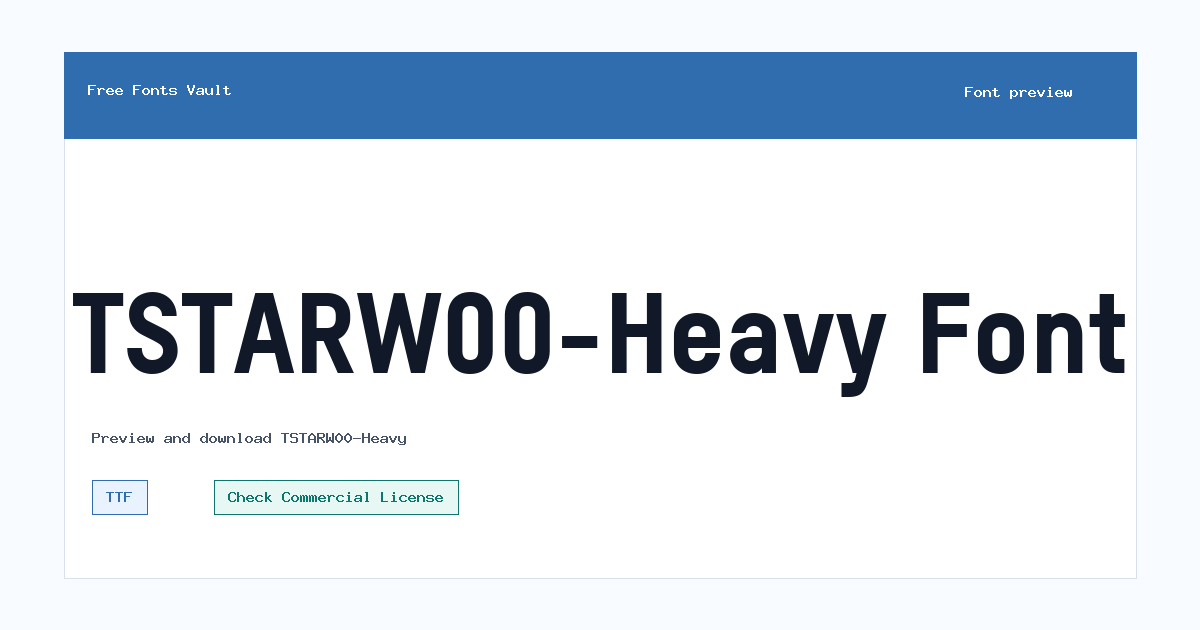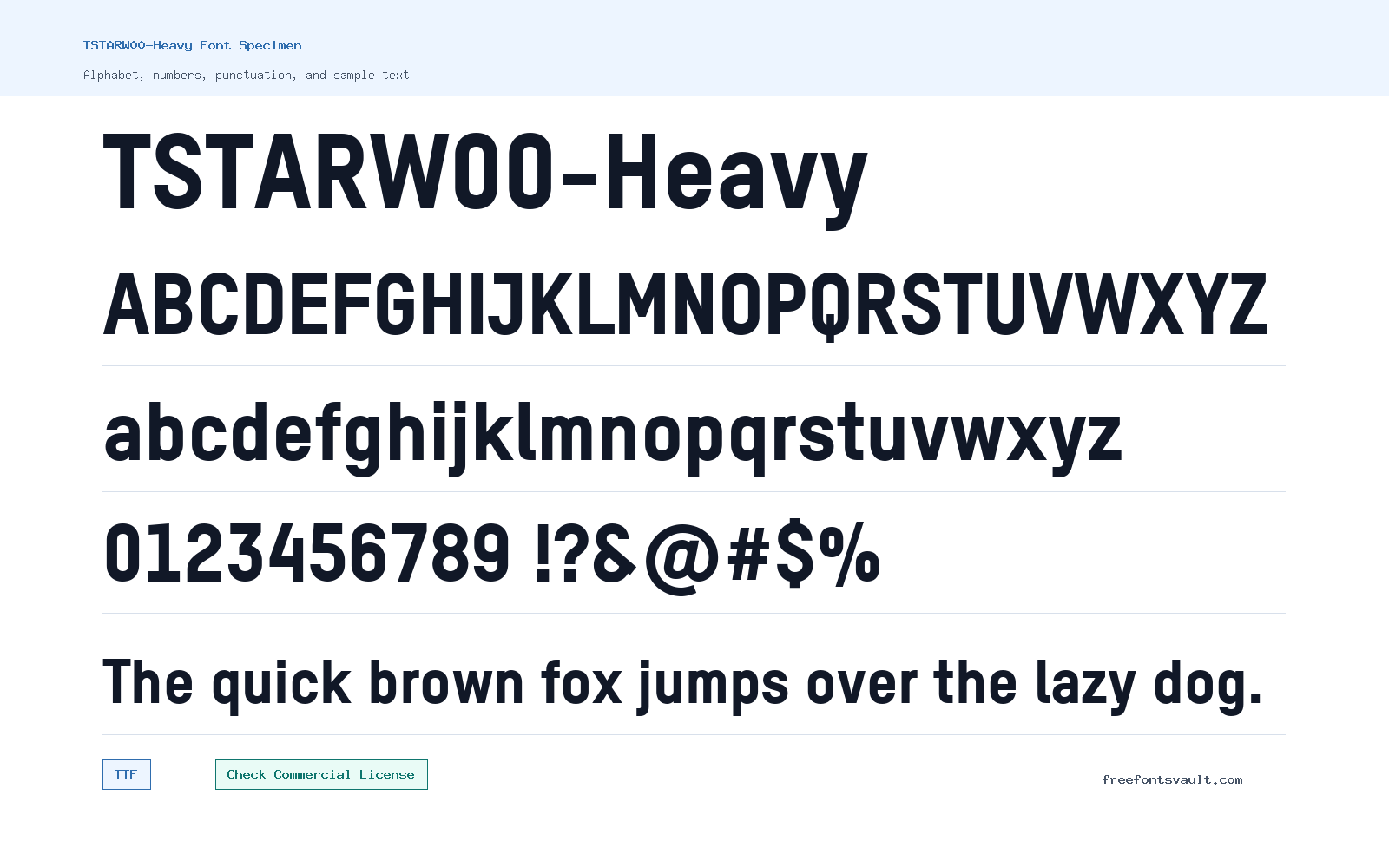
TSTARW00-Heavy
TSTARW00-Heavy Font
TSTARW00 Heavy is a bold TTF font with an 800 weight, made for text that needs a strong, dark presence on the page.
About TSTARW00 Heavy
TSTARW00 Heavy uses a heavy font weight, so it is best treated as a display or emphasis style rather than a long-reading text face. Its heavier build can help short words, labels, titles, and compact headings stand out clearly in a preview. Because only one regular-style TTF file is listed, visitors should test the exact words they plan to use and check spacing, punctuation, numbers, and accented characters before relying on it for a finished design.
Use this font where weight matters: poster lines, website hero text, short branding mockups, thumbnail titles, menu labels, or bold editorial accents. Keep the text short, give it enough space, and avoid setting full paragraphs in it unless the preview proves comfortable. If you pair it with another font, choose a quieter text face so the heavy style can do the visual work without making the layout feel crowded.
TSTARW00 Heavy is the kind of typeface to use when the message should feel deliberate and compact. It can work for music artwork, sports graphics, urban posters, navigation labels, or strong editorial decks where a dark headline anchors the design. Because the weight is assertive, leave breathing room around it and avoid placing several heavy fonts beside it.
• Heavy 800 weight for strong display text and headline use
• Short headlines, titles, posters, and website hero text
• Bold labels, preview graphics, editorial accents, and display typography tests
The designer is listed as Mika Mischler, with the designer URL shown as binnenland.ch.
Is TSTARW00 Heavy good for body text?
It is better for short display text. The listed 800 weight is heavy, so long paragraphs may feel dense or tiring to read.
Who designed TSTARW00 Heavy?
The designer is listed as Mika Mischler.